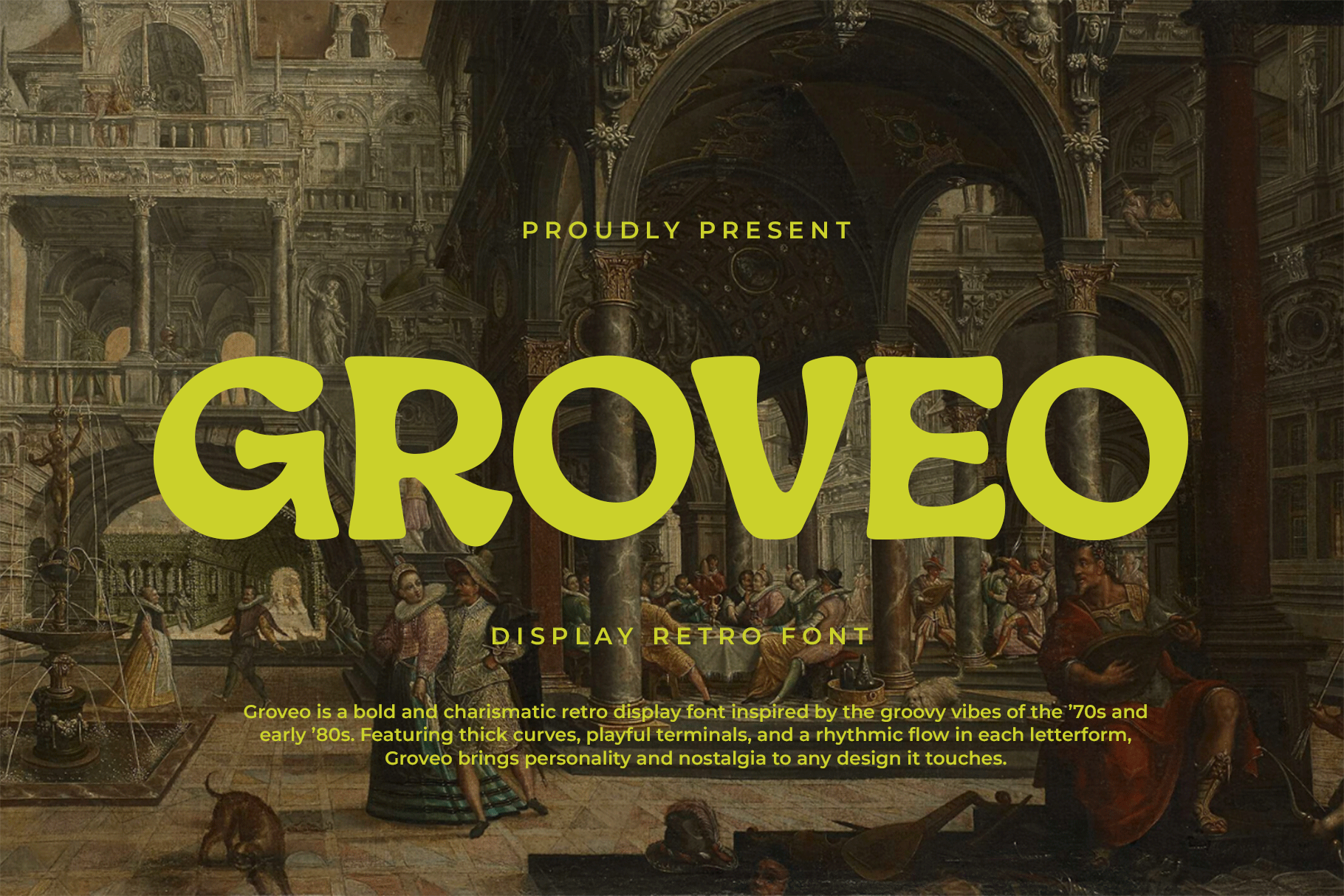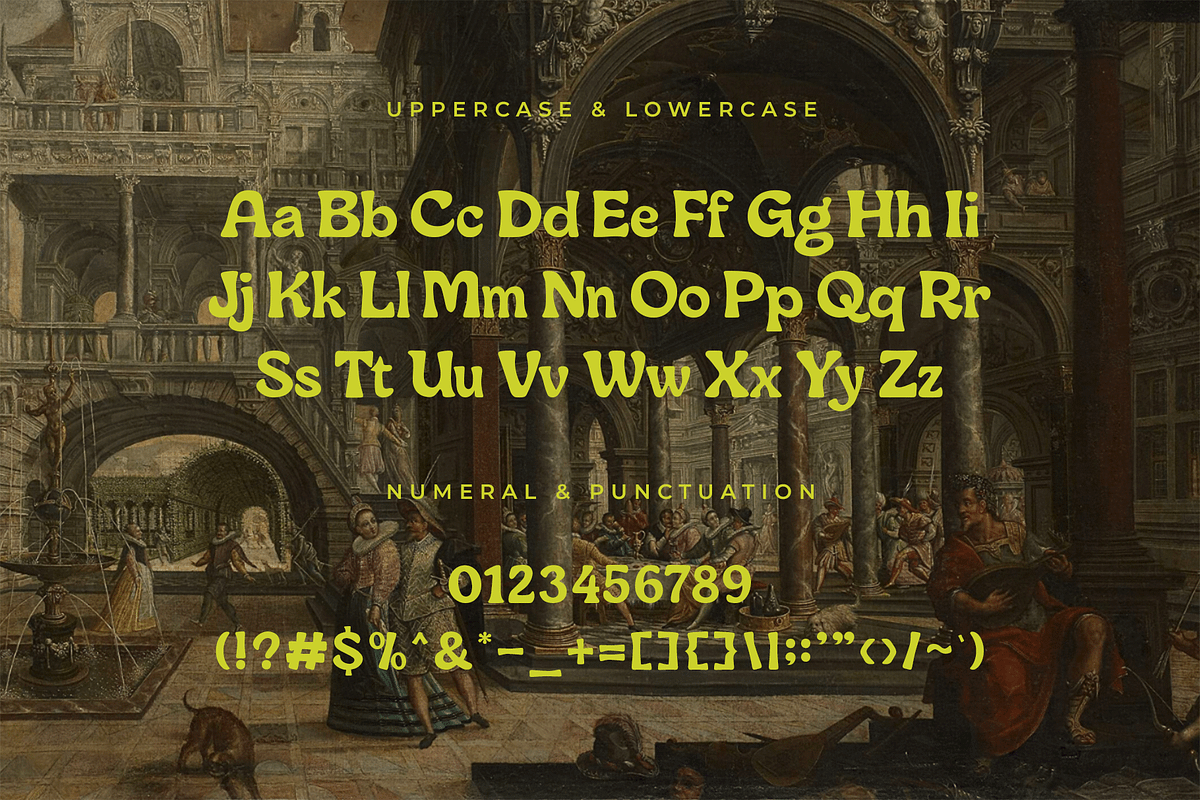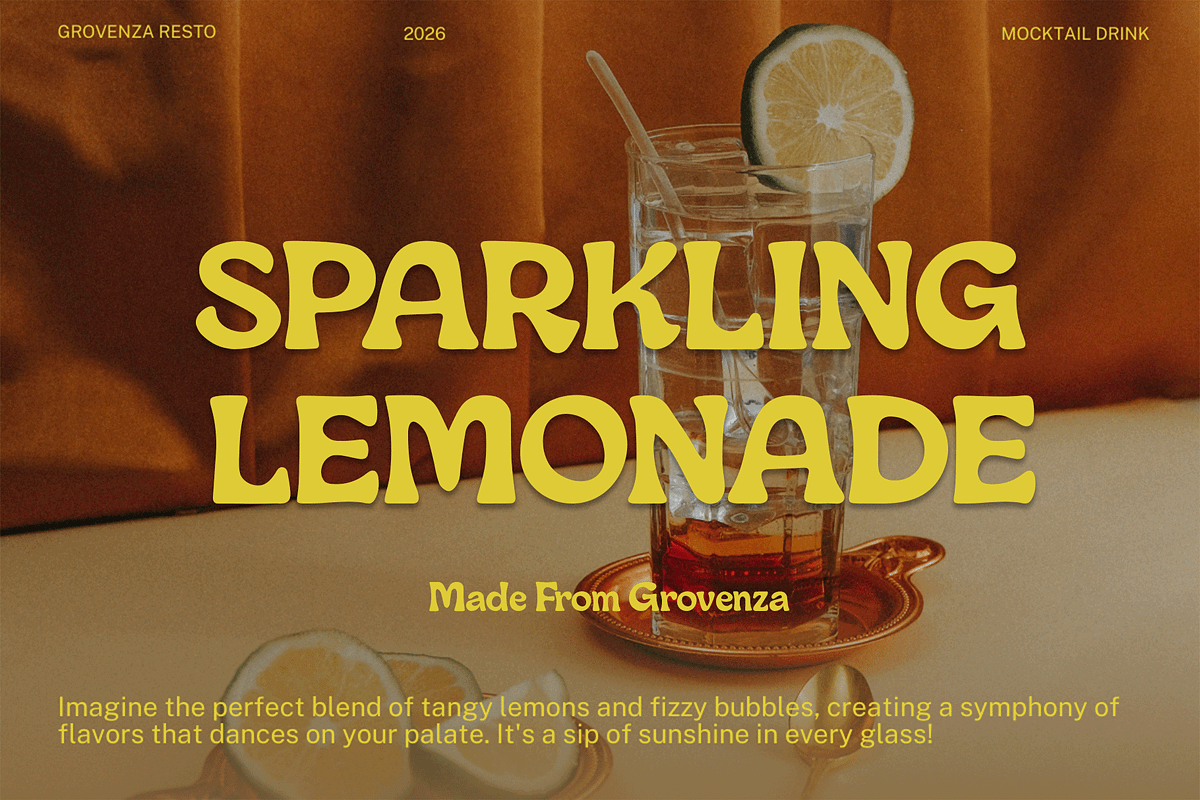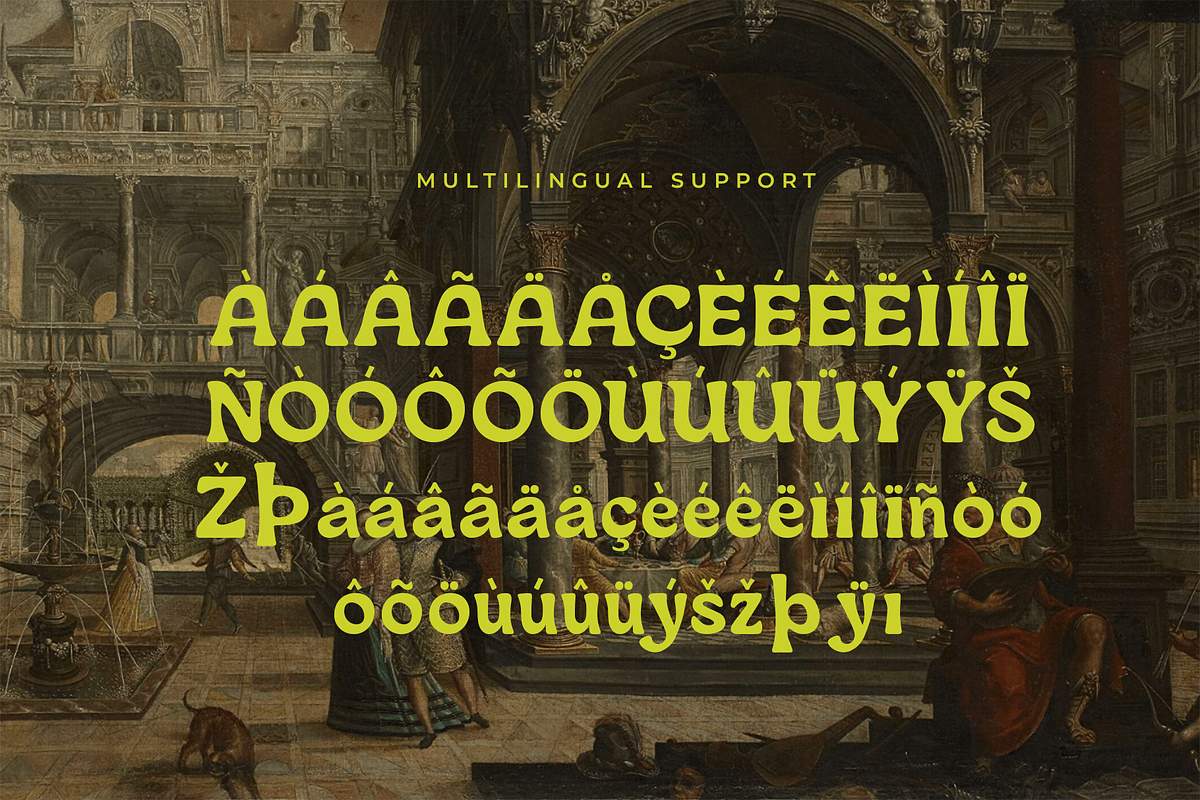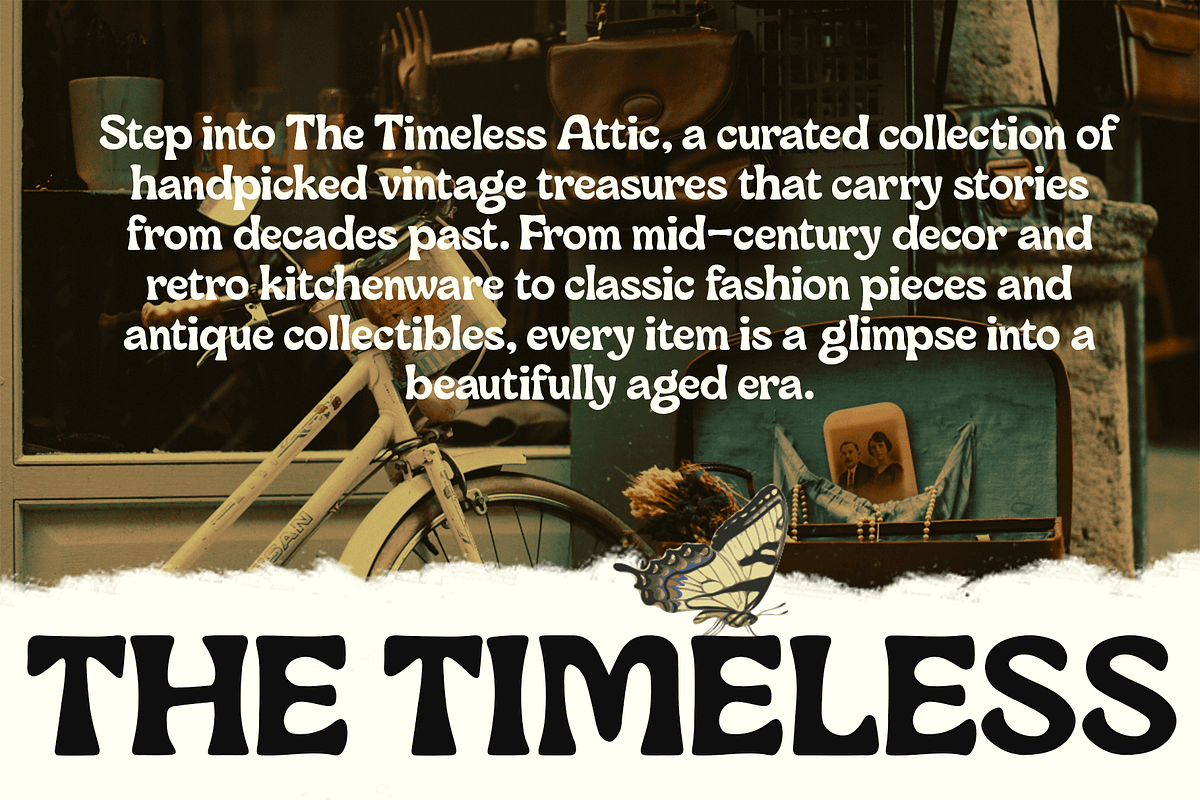
Groveo – Display Retro Font
Introducing Groveo, a display retro font that captures the nostalgic spirit of classic design with a fresh, contemporary touch. Bold, playful, and full of character, Groveo is crafted to stand out while bringing a warm vintage feel to your creative projects.
Perfect for posters, branding, packaging, retro-themed graphics, and creative headlines, Groveo combines quirky retro aesthetics with modern usability. Its eye-catching curves and stylish letterforms make it ideal for projects that want to evoke both nostalgia and bold creativity.
Embrace the timeless charm of retro design with Groveo, and make every project feel memorable and full of life!